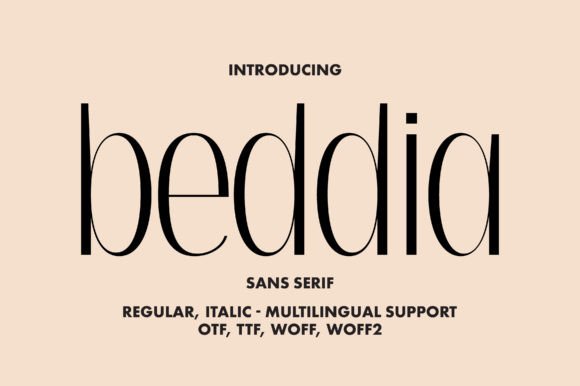
Introducing Beddia: The Ultimate Sans Serif Font for Elegant Designs
In the world of typography, a font can make or break a design. It’s the foundation upon which the entire visual identity of a project is built. For designers and crafters looking to add a touch of elegance and sophistication to their work, Beddia font is the perfect solution. This delicate, chic, and fluid sans serif font is designed to elevate any project, from fashion branding to editorial layouts, with its refined and polished look.
The Characteristics of Beddia Font
Beddia font boasts smooth curves and clean lines that create a distinctive personality, setting it apart from other sans-serif fonts on the market. Its subtle details and unique letterforms give it a refined and sophisticated feel, perfect for designers who want to add a touch of luxury to their work. The font’s fluidity and delicacy make it an excellent choice for a wide range of applications, from high-end fashion branding to editorial layouts, and even web design.
What Makes Beddia Stand Out
So, what makes Beddia font stand out from the crowd? Here are a few key features that set it apart:
- Smooth Curves and Clean Lines: Beddia’s smooth curves and clean lines create a refined and polished look that’s perfect for elegant designs.
- Subtle Details and Unique Letterforms: The font’s subtle details and unique letterforms give it a distinctive personality that sets it apart from other sans-serif fonts.
- Fluid and Delicate: Beddia’s fluidity and delicacy make it perfect for a wide range of applications, from fashion branding to editorial layouts.
- Elegant and Sophisticated: The font’s refined and sophisticated feel makes it an excellent choice for designers who want to add a touch of luxury to their work.
Beddia font is perfect for a wide range of applications, including:
- Fashion Branding: Add a touch of elegance and sophistication to your fashion brand with Beddia font.
- Editorial Layouts: Use Beddia font to create refined and polished editorial layouts that showcase your content in style.
- Web Design: Beddia font is perfect for web design, adding a touch of elegance and sophistication to your website.
- Print Design: Use Beddia font for print design, including brochures, flyers, and business cards.
Tips for Using Beddia Font
Here are a few tips for using Beddia font in your designs:
- Pair it with Other Fonts: Beddia font pairs well with other fonts, including serif fonts and script fonts.
- Use it for Headings and Titles: Beddia font is perfect for headings and titles, adding a touch of elegance and sophistication to your design.
- Experiment with Different Sizes: Experiment with different sizes to find the perfect fit for your design.
In conclusion, Beddia font is a delicate, chic, and fluid sans serif font that’s perfect for adding a touch of elegance and sophistication to any project. Its smooth curves and clean lines create a refined and polished look that’s perfect for everything from fashion branding to editorial layouts. With its subtle details and unique letterforms, Beddia font is sure to make your design stand out from the crowd. So why wait? Try Beddia font today and elevate your designs to the next level!